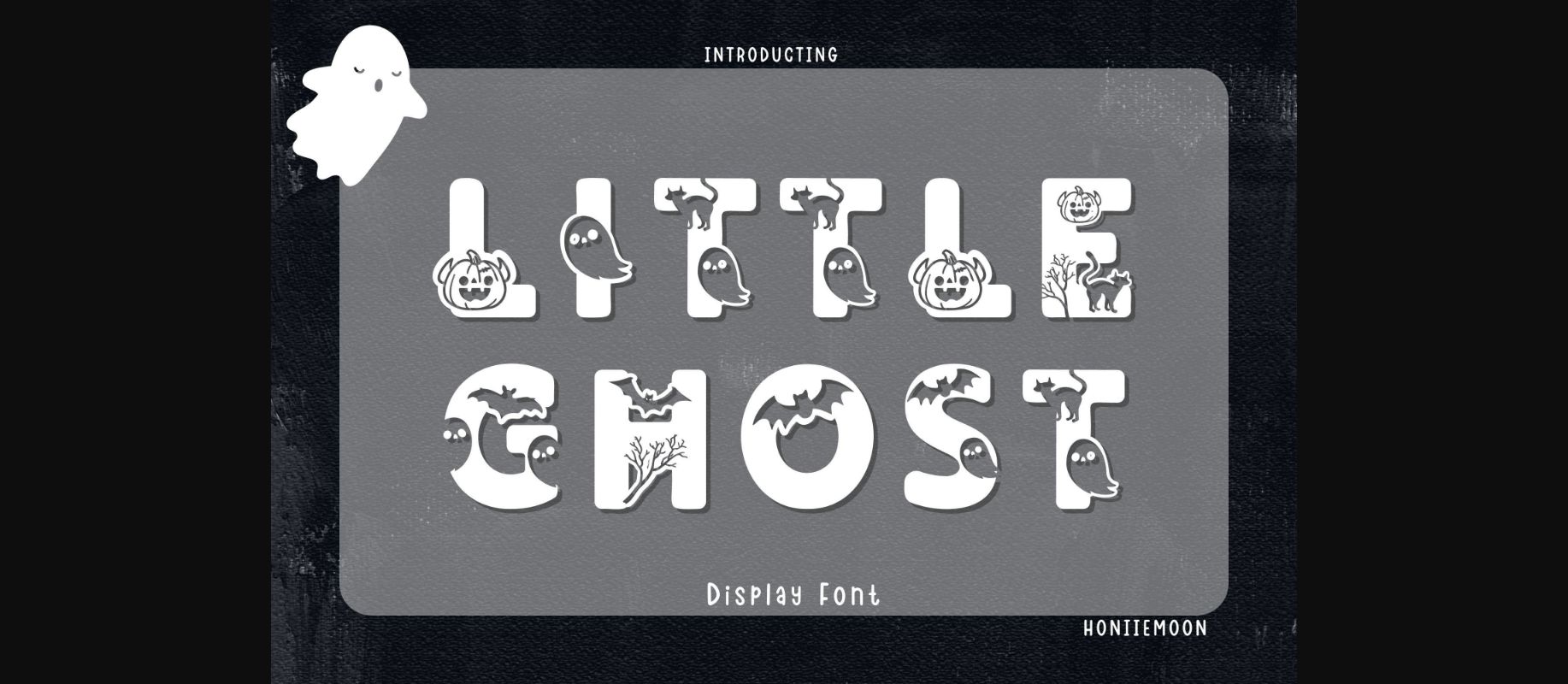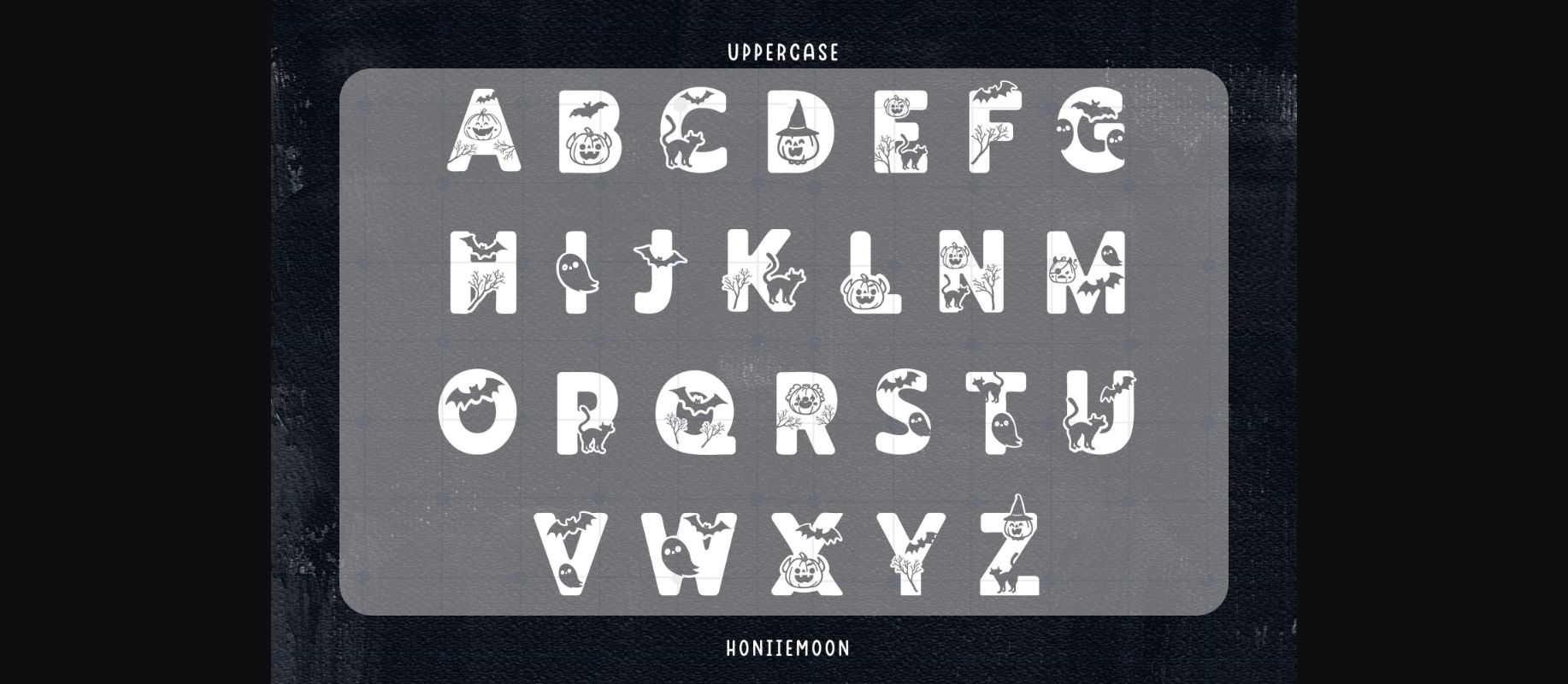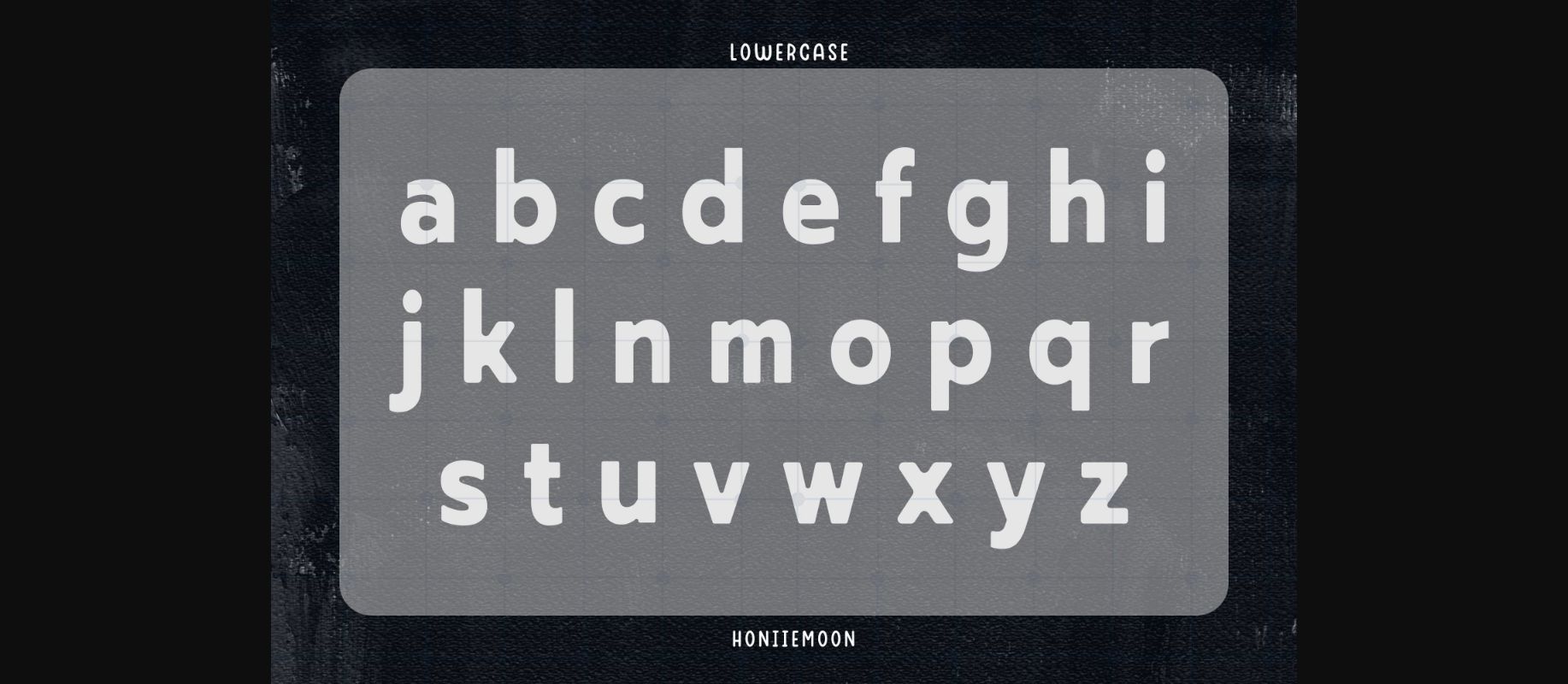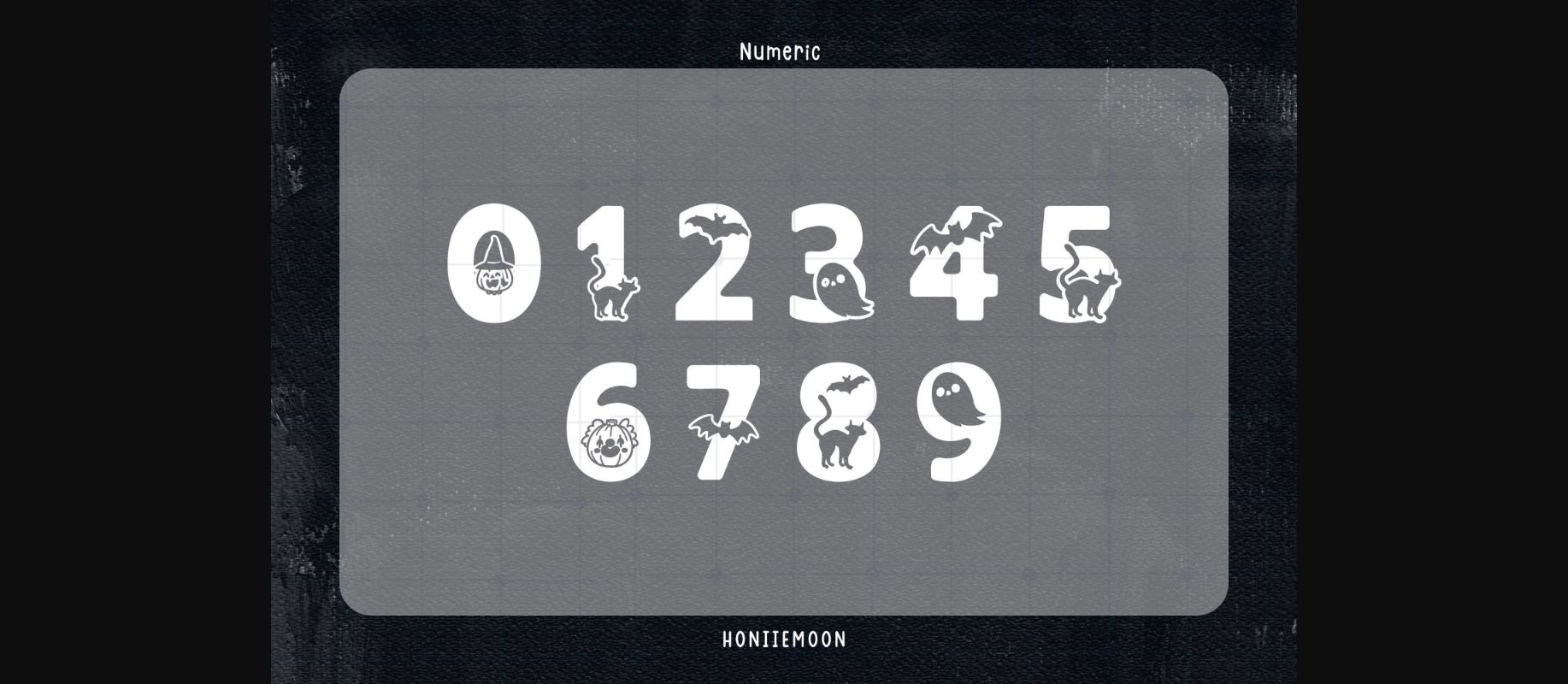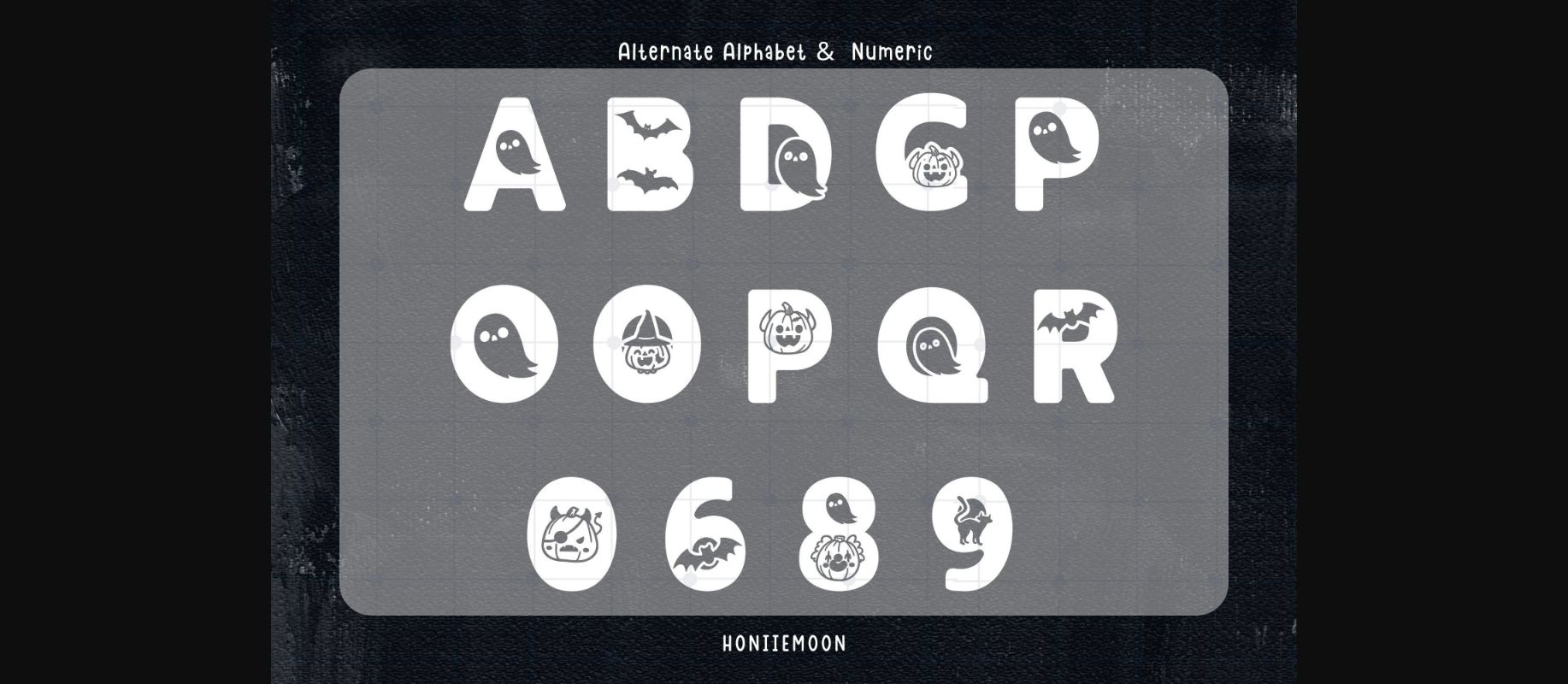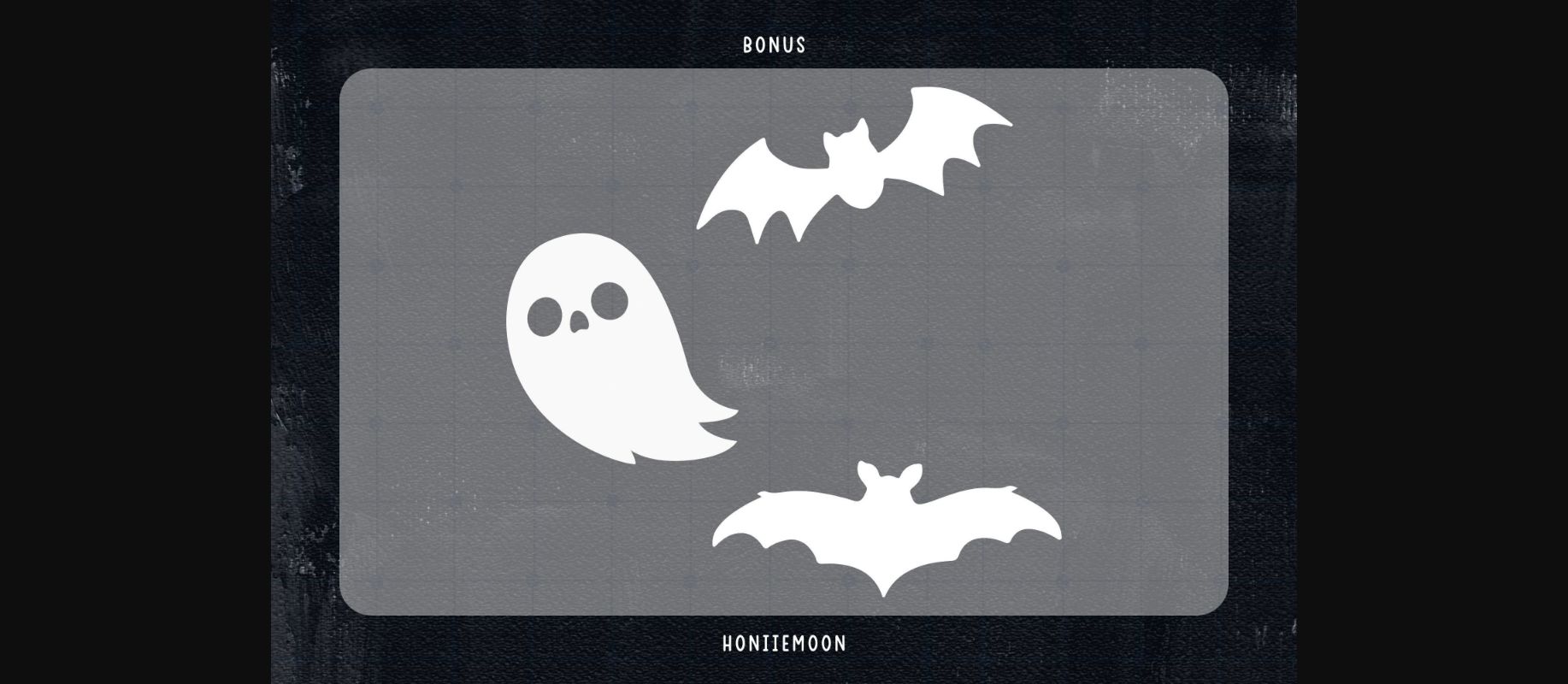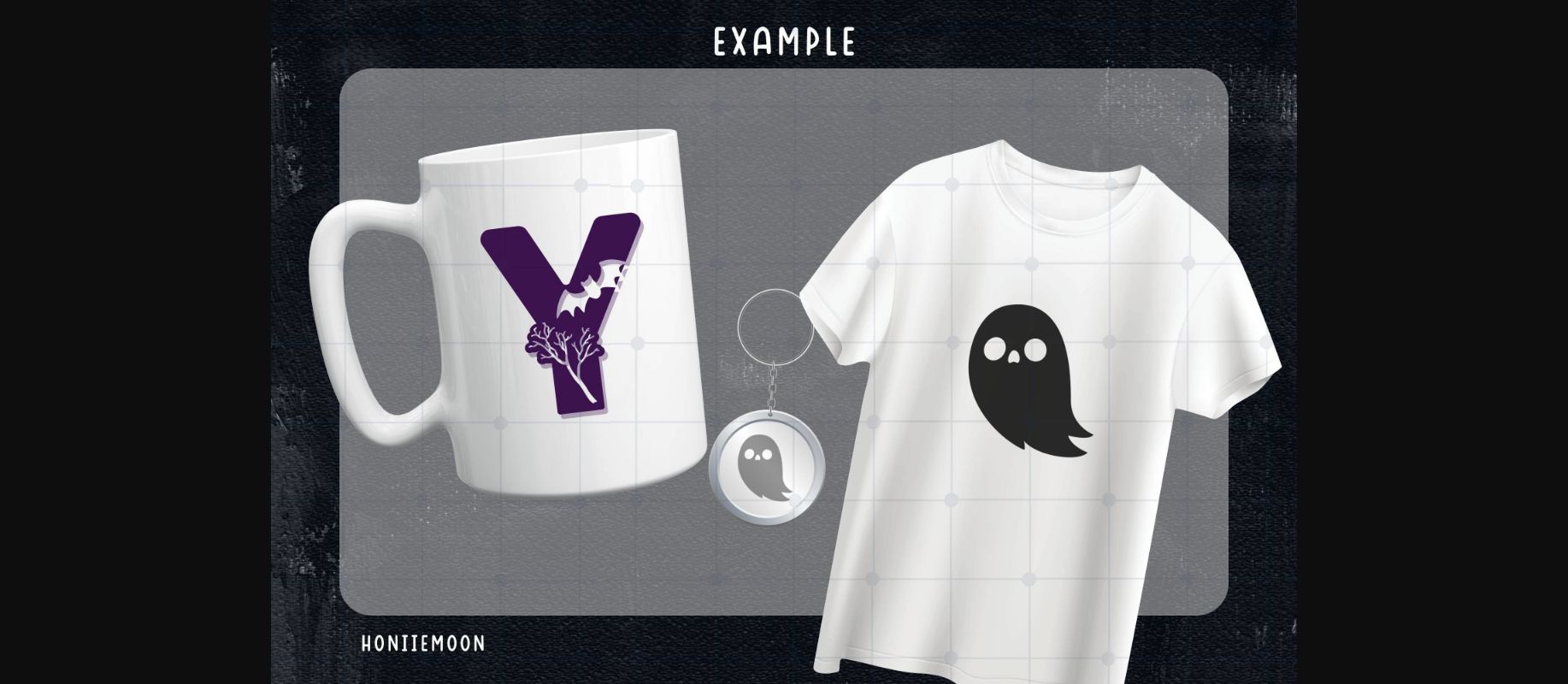
HomeDecorative FontsLittle Ghost Font Decorative Fonts Little Ghost Font FacebookXPinterestWhatsApp 1 of 9 ... Little Ghost Font Poster 2... Little Ghost Font Poster 3... Little Ghost Font Poster 4... Little Ghost Font Poster 5... Little Ghost Font Poster 6... Little Ghost Font Poster 7... Little Ghost Font Poster 8... Little Ghost Font Poster 9... About Little Ghost Font Little Ghost is a cool and fun decorative font that looks both cute and jolly and it will enhance your designs. The only limit is your imagination! DOWNLOAD NOW People also explored Isabella Script Sweet Lemon Besport Font Gallery Font Kyosta Font Play Loving Font Girly Signature Font Merry Time Font Rosemero Emperor Font 335 0 TagsLittle Ghost Font Previous articleThanksgiving FontNext articleLove Dad Font LEAVE A REPLY Cancel reply Comment: Please enter your comment! Name:* Please enter your name here Email:* You have entered an incorrect email address! Please enter your email address here Website: Save my name, email, and website in this browser for the next time I comment. Personal Use Free BD Pipe Personal Use Free Read more about this font Sunflower Personal Use Free Read more about this font Persephone Free Personal Use Free Read more about this font Clumed Personal Use Free Read more about this font BLOG Free Fonts Risk: Why Free Fonts Can Be Dangerous for Designers Free Fonts Risk: Why Free Fonts Can Be Dangerous for Designers Using free fonts is a common practice in web and graphic design. However, the... Exploring Font Trends To increase your work productivity, choose the most readable fonts. Top 7 Google Fonts Alternatives for Faster and Privacy-Friendly Web Design (2025)